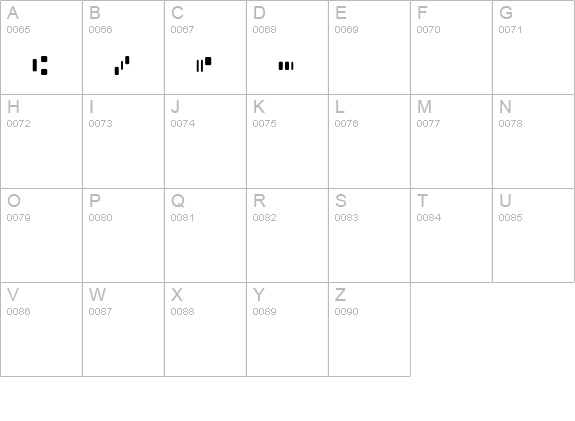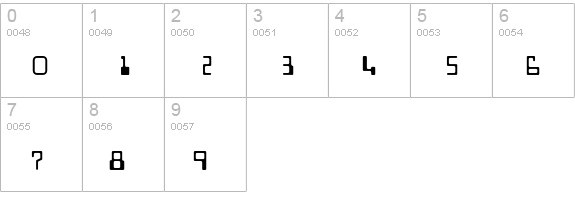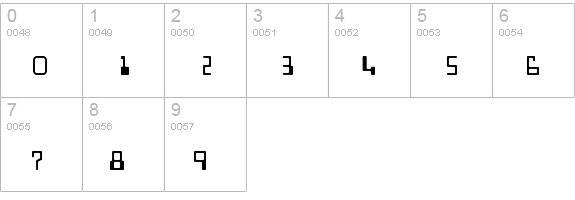
MICR 012 Font Details
MICR 012 font is a sleek and professional typeface specifically designed for use in financial and banking documents. Its clear and precise letterforms ensure optimal readability, making it ideal for printing checks and other important financial paperwork. The MICR 012 font features clean lines and a distinctively modern appearance, making it a versatile choice for a variety of applications. What sets MICR 012 font apart is that it is available for free download at FontsMarket.com. This means that users can easily access this high-quality typeface without any cost, making it a valuable resource for businesses and individuals looking to enhance their financial documents. With its combination of style and functionality, MICR 012 font is sure to make a strong impression while ensuring accurate and reliable printing results.